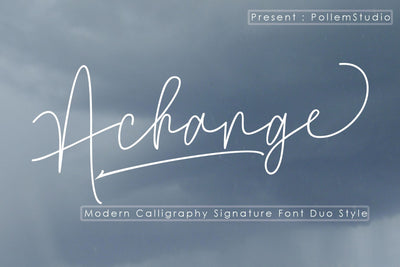
Achange Script
Achange Font Script are duo fonts of Achange line and Achange regular stylish calligraphy that have a varied base line,, this is something unique but very beautiful, luxury and charming. This font is to complement your design needs in making amazing works.
Achange Script is perfect for branding, wedding invitations, magazines, mugs, business cards, quotes, posters, and many more that you can use on your big project will be very beautiful.
Achange Script has been equipped with the OpenType feature and has many glyphs. and of course having a lot of flying machines will be able to choose letters to your liking, lots of variations and choices for each letter, so you can adjust your design choices and also have other languages ??supported.
The Features of this fonts is:
* Standart ligatures
* Stylistic Alternates
* Stylistic sets
* Contextual Alternates
* PUA Unicode (Private Use Areas)
* Swash